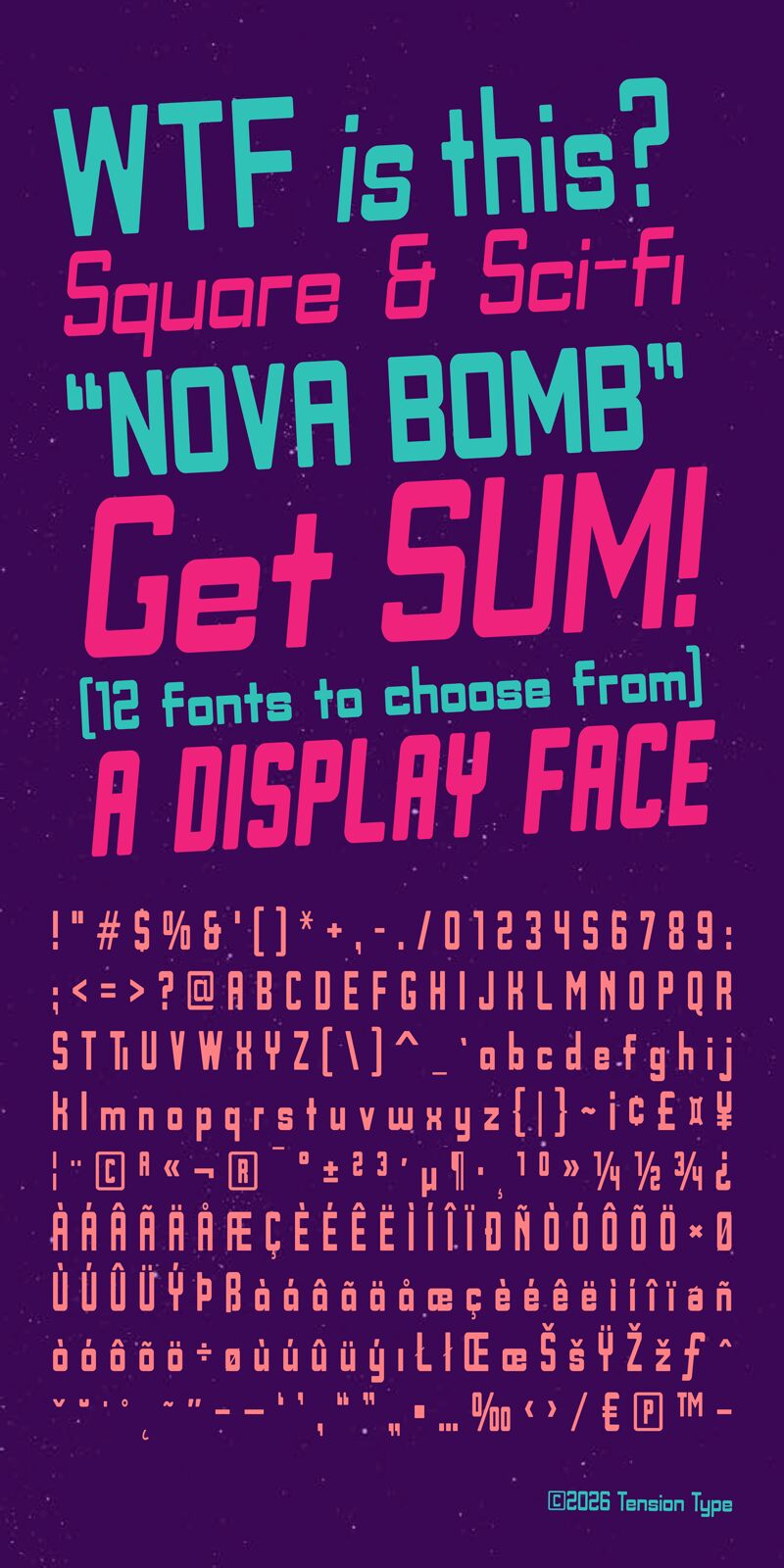
Nova Bomb Semi Bold from Tension Type is a free techno display font built from stark geometric forms and industrial proportions. Broad rounded letters, squared inner spaces, and abrupt cut corners give the design a machine-made silhouette, with shifting stroke widths adding tension across the line.
Gaming and electronic-music audiences will recognize a blend of arcade hardware and futuristic branding, suited to game graphics, album covers, event posters, and tech packaging. The repeated rectangular openings and clipped edges can echo interface panels, controller buttons, modular product graphics, and signage.
This type design is based on a sketch I made several years ago. It was initially intended to be a hand-drawn typeface, but I did not make significant progress after starting it. In 2026, I decided to revisit it. It is not intended for body copy.
Nova Bomb Semi Bold
Tension Type
Michael Tension
This type design was based on a sketch I did a bunch of years ago. It was initially intended as a hand drawn typeface. I started it, but I never really made any progress. In 2026 I decided to give it another shot. Its a bit sci fi, a lot square. Good for large text and logos etc. Not intended for body copy at all.